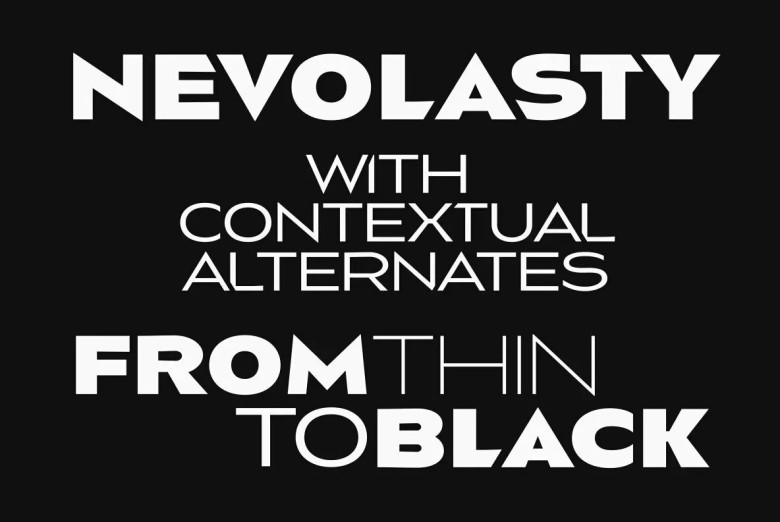
Nevolasty Font
Nevolasty features a geometric sans-serif (uppercase). Its family comes in nine weights – from Thin to Black – making it suitable for graphic design, branding and packaging design projects. Available as a Latin font with support for Western,
Central and Eastern European languages as well as over 1,000 alternate characters giving texts an elegant modern appearance with over 1,000 automatic alternate characters in every text; try the magical Stylistic Set01 for even more extreme contextual automatic alternates!
Nevolasty Sans Serif Font